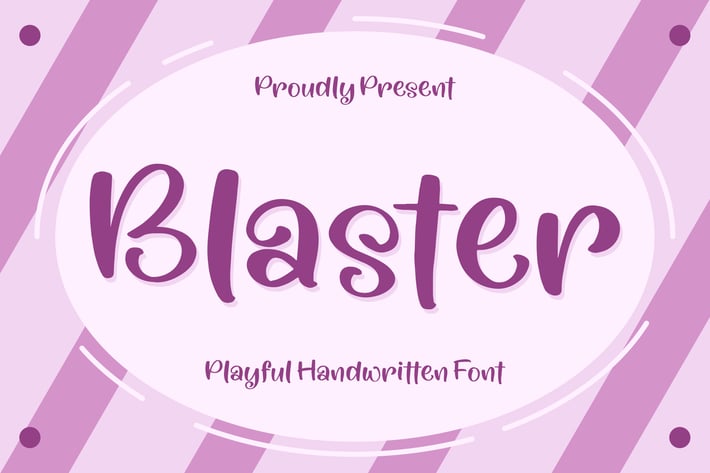
Blaster Playful Handwritten Font
Blaster Playful Handwritten Font is a fun, lively script font that adds a playful and energetic vibe to your designs. With its bouncy strokes and quirky character, this font is perfect for projects that require a fun and youthful feel.
Playful, handwritten script style
Bouncy and energetic strokes
Ideal for both digital and print creative work
Great for adding personality to designs
Social media graphics and playful posts
Branding for youth-focused products and services
Invitations and greeting cards with a fun, personal touch
Creative business cards with a unique flair
Custom designs for playful merchandise
Posters, flyers, and event promotions
Website headers and banners with an upbeat vibe
Bring your designs to life with Blaster Playful Handwritten Font, perfect for making a bold, youthful statement.